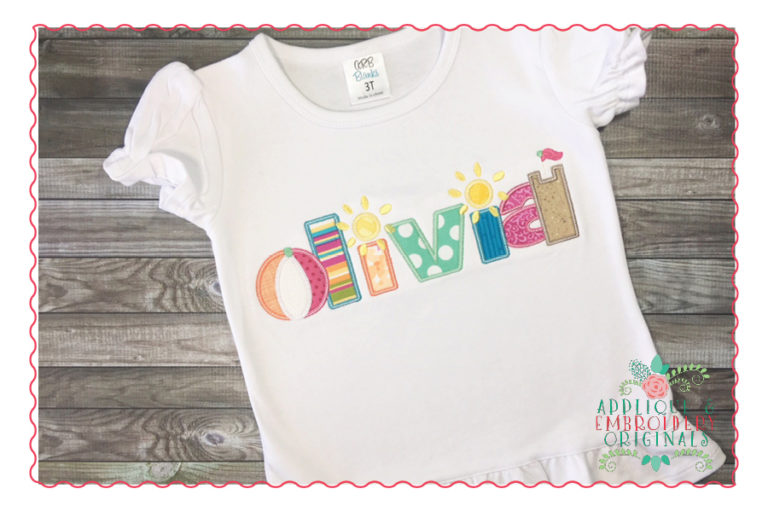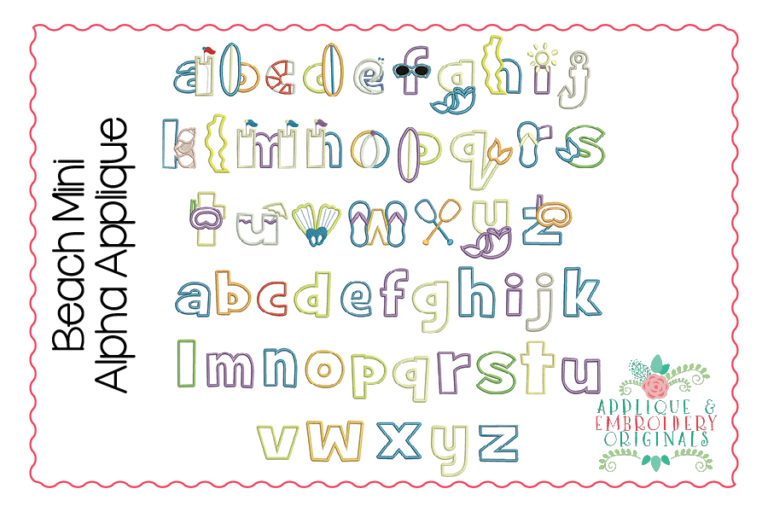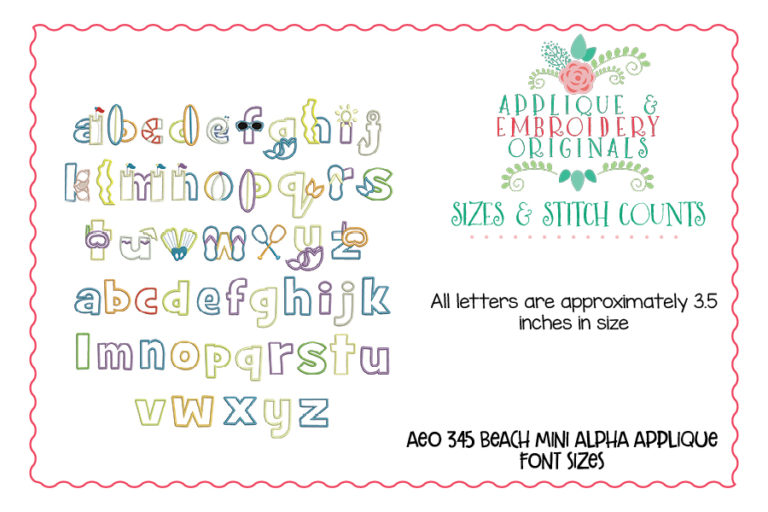
345 Beach Mini Alpha Applique Font for embroidery machine. Perfect for your shirt, bag, towel or other item!
This font is approximately 3.5″ tall. All letters are applique and the font set includes both the special letters and the normal letters.